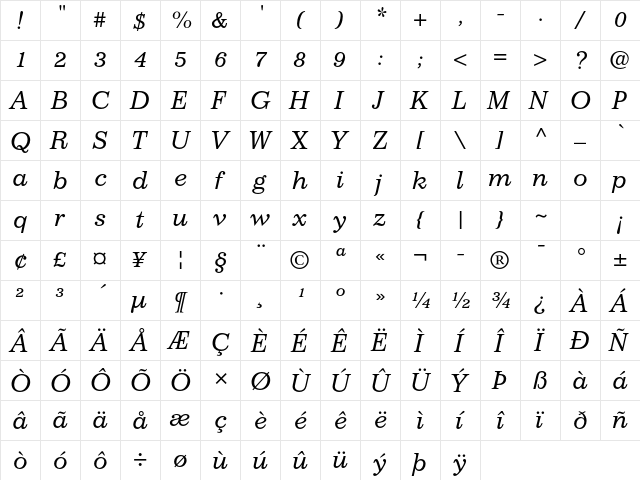
Impressum Std Italic Font Preview
Impressum Std Italic
Impressum Std Italic Font Details
| Designer | Konrad F. Bauer, Walter Baum |
Design Context for Impressum Std Typeface
Impressum Std is a composed and adaptable typeface that performs quietly and consistently across a wide range of design contexts. The slanted form adds forward momentum and visual energy.
Pro Tip: Try Impressum Std for annotation and caption copy alongside an upright companion — the contrast in angle creates a dynamic but ordered typographic system.